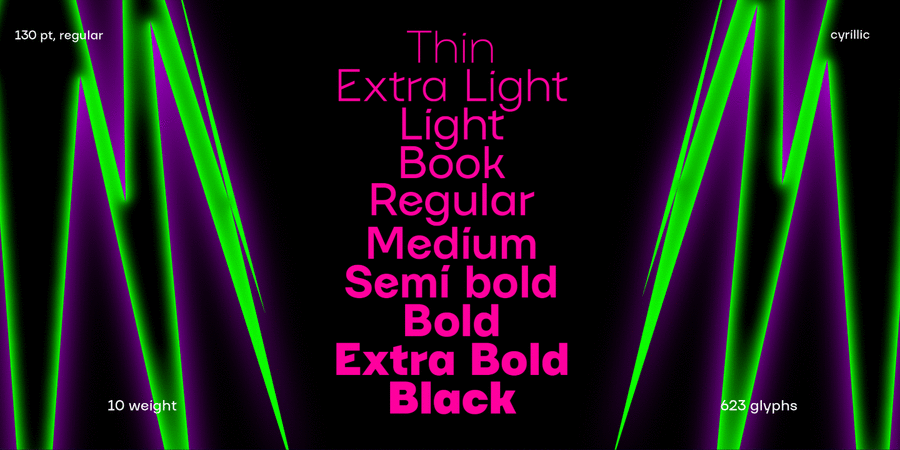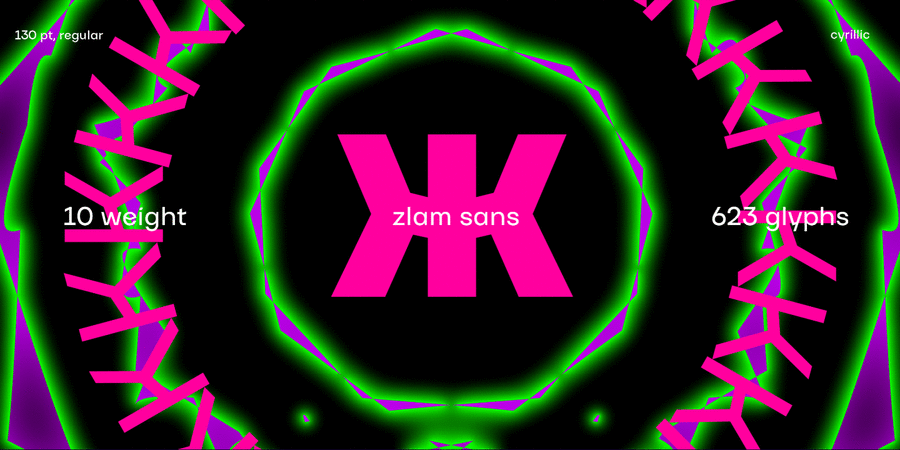
About ZlamZlam is a contemporary geometric grotesque available in ten weights from Light to Black. Inspired by Ukrainian modernism of the last century, it features asymmetric letterforms and an overall avant-garde character. Its dynamism and sharpness are achieved through broken horizontals, making it confident and uncompromising. It adds a touch of Ukrainian vibe to any design. Designed by Anastasiia Shyshenok, Serhii Makarenko and Kyrylo Tkachov in 2024.
Features of font family ZlamThe hit of the decade:
Associations for font family ZlamTypeface personality and character:
sharp, voiced, clean, solid, high-quality, fashionable, accurate, cold, weightless, easy, transparent, thin, glass, cutting, crisp, steel, strange, architectural, urban, original, distinctive, expensive, brumal, icy, creative, unusual, modern, technical, flat, stable, automatic, artificial, engineering, schematic, urbanistic, wire, musical, machine, chopped, daring, ambitious, extravagant, playful, impudent, motivating, night, active, dangerous, convincing, serious, iron, self-assured, strong, robust, industrial, technogenic, authoritative, important, rude, lasting, workman, splashy, notable, bright, heavy, generous, artistic, expressive, powerful, loud, intrusive, party, clubbing, extremal, risky, aggressive, expressing, rigid, radical, tough, severe, significant, formidable, durable, cocky, black, close-fitting